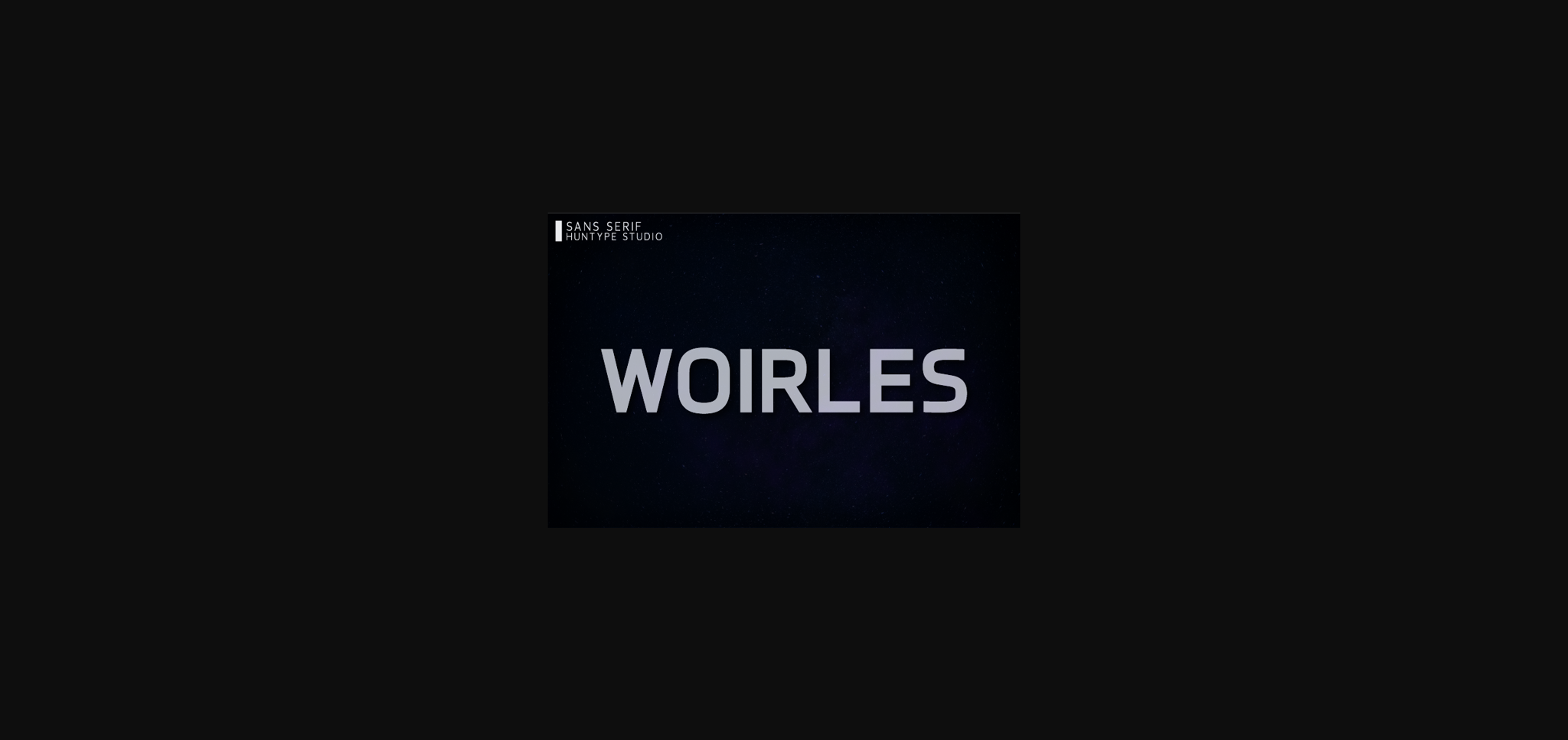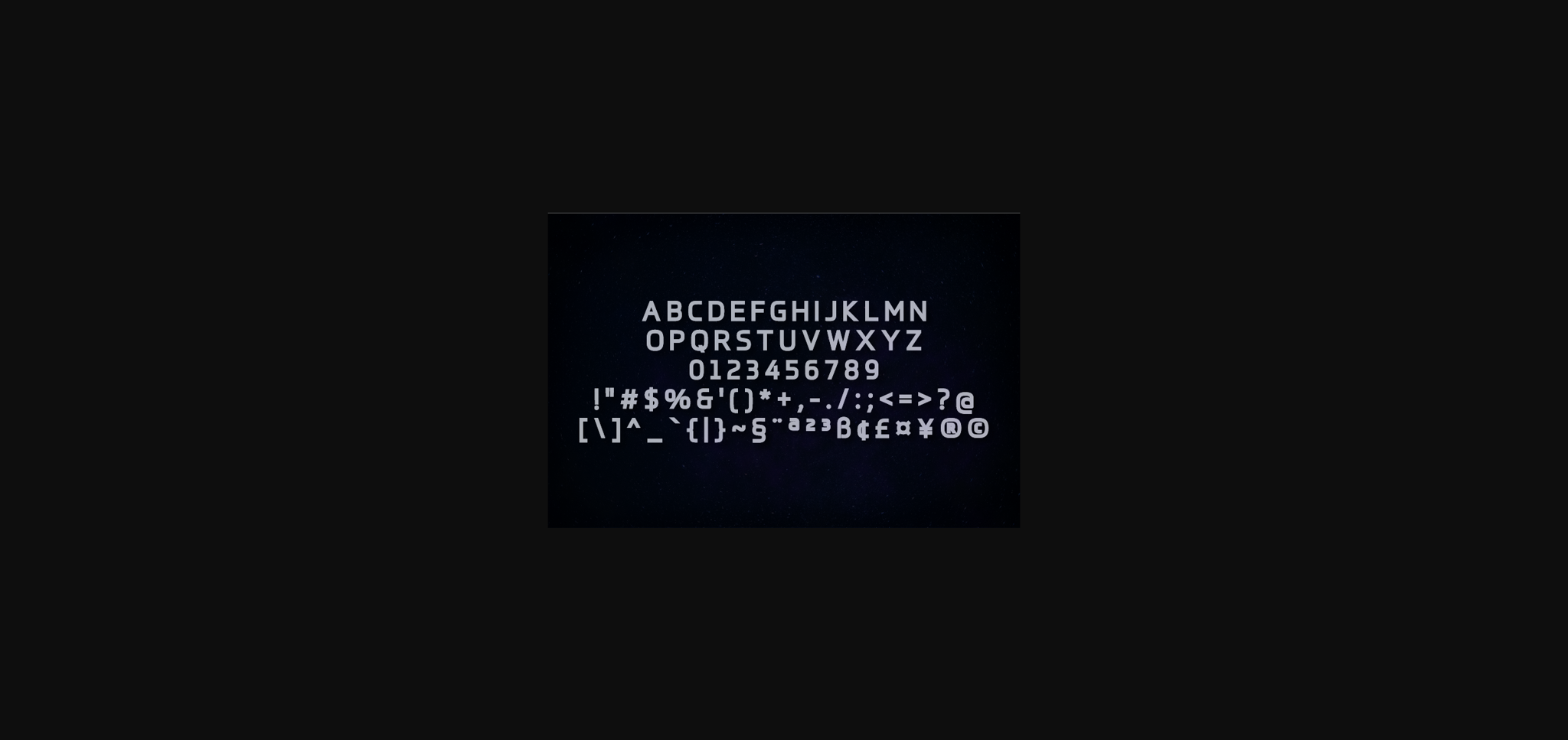
HomeSans Serif FontsWoirles Font Sans Serif Fonts Woirles Font FacebookXPinterestWhatsApp 1 of 4 ... Woirles Font Poster 2... Woirles Font Poster 3... Woirles Font Poster 4... About Woirles Font Woirles is a modern and classy sans serif font. It will complement any design need perfectly with its perfectly balanced mix of the smooth and sharp! DOWNLOAD NOW People also explored Aslaha Biladina Font Big Day Font White Box Font Aphotic Font Pumpkin Spice Font Handwriting Font The Junipes – Textured Brush Font Heartbeat Family Font New Yorker Type 344 0 TagsWoirlesWoirles Font Previous articleGolde FontNext articleFiern Font LEAVE A REPLY Cancel reply Comment: Please enter your comment! Name:* Please enter your name here Email:* You have entered an incorrect email address! Please enter your email address here Website: Save my name, email, and website in this browser for the next time I comment. Personal Use Free Lightning Script Personal Use Free Read more about this font Sui Genesis Personal Use Free Read more about this font Squealer Personal Use Free Read more about this font Solaria Personal Use Free Read more about this font BLOG Top 7 Google Fonts Alternatives for Faster and Privacy-Friendly Web Design (2025) Top 7 Google Fonts Alternatives for Faster and Privacy-Friendly Web Design (2025) When it comes to web typography, Google Fonts has long been the go-to... 5 Fonts That Will Dominate Design Trends in 2026 Exploring Font Trends To increase your work productivity, choose the most readable fonts.